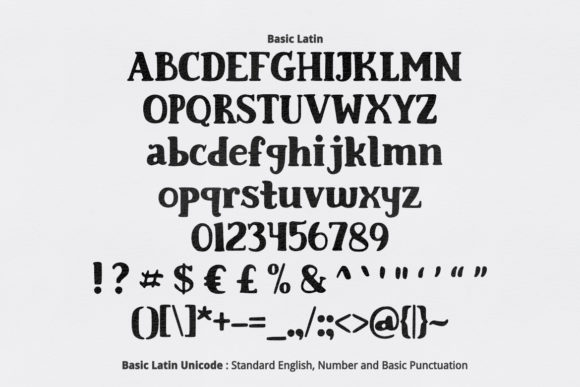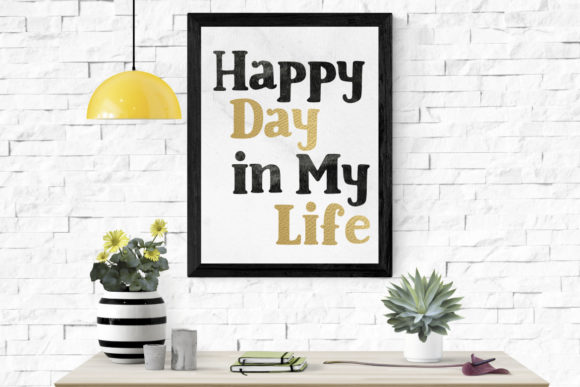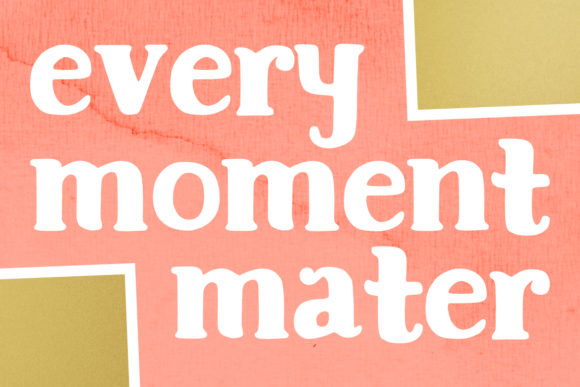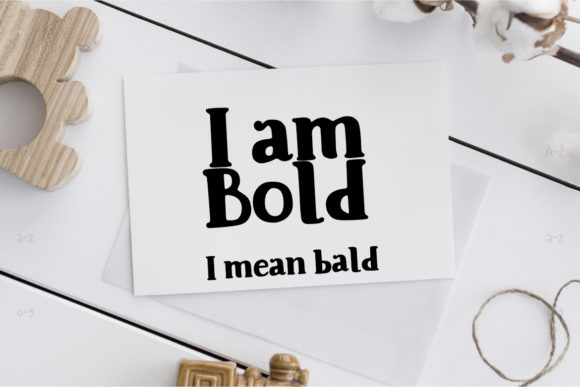
Introducing Gold Stack: The Lovely Serif Font with a Nostalgic Feel
Are you a designer or crafter looking for a font that can add a touch of style and charm to your projects? Look no further than Gold Stack, a beautiful serif font that exudes a nostalgic feel. In this article, we’ll take a closer look at Gold Stack and explore how you can use it to deliver any message with style and charm.
What is Gold Stack Font?
Gold Stack is a serif font that features a classic, elegant design with a warm and inviting feel. The font is characterized by its distinctive serifs, which give it a nostalgic and sophisticated look. With its unique blend of traditional and modern elements, Gold Stack is the perfect choice for designers and crafters who want to add a touch of elegance to their projects.
Key Features of Gold Stack Font
So, what makes Gold Stack font so special? Here are some of its key features:
- Classic Serif Design: Gold Stack features a traditional serif design that is reminiscent of classic fonts from the past.
- Nostalgic Feel: The font has a warm and inviting feel that is perfect for creating projects that require a touch of nostalgia.
- Elegant and Sophisticated: Gold Stack is a sophisticated font that is perfect for creating high-end projects that require a touch of elegance.
- Versatile: The font is versatile and can be used for a wide range of projects, from digital designs to print materials.
How to Use Gold Stack Font
Gold Stack font is easy to use and can be incorporated into a wide range of projects. Here are some ideas for using Gold Stack:
- Digital Designs: Use Gold Stack to create stunning digital designs, such as social media graphics, blog posts, and email newsletters.
- Print Materials: The font is perfect for creating print materials, such as brochures, flyers, and business cards.
- Crafting Projects: Gold Stack is a great choice for crafters who want to add a touch of elegance to their projects, such as scrapbooking, card making, and journaling.
- Branding and Packaging: Use Gold Stack to create a cohesive brand identity that exudes style and sophistication.
Tips for Getting the Most Out of Gold Stack Font
Here are some tips for getting the most out of Gold Stack font:
- Experiment with Different Sizes: Gold Stack looks great in a variety of sizes, so don’t be afraid to experiment with different font sizes to find the one that works best for your project.
- Pair it with Other Fonts: Gold Stack pairs well with other fonts, so try combining it with a sans-serif font for a stylish contrast.
- Use it for Headings and Titles: Gold Stack is perfect for headings and titles, so use it to add a touch of elegance to your project.
- Make it Your Own: Don’t be afraid to get creative with Gold Stack and make it your own by adding your own personal touches.
Gold Stack font is a beautiful serif font that is perfect for designers and crafters who want to add a touch of style and charm to their projects. With its classic design, nostalgic feel, and elegant look, Gold Stack is the perfect choice for a wide range of projects. Whether you’re creating digital designs, print materials, or crafting projects, Gold Stack is sure to deliver any message with style and charm.